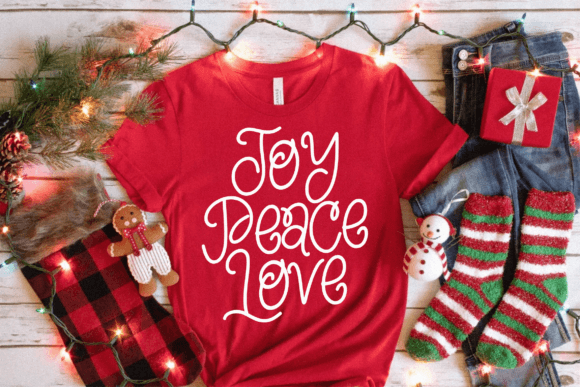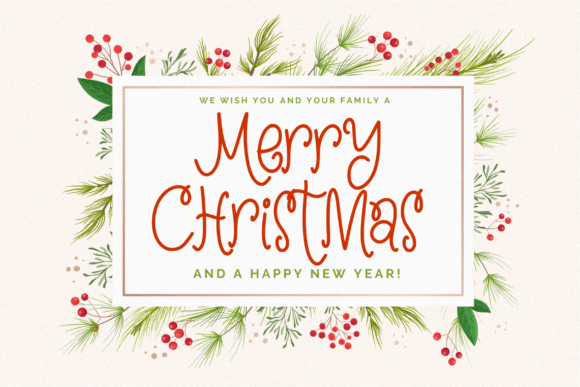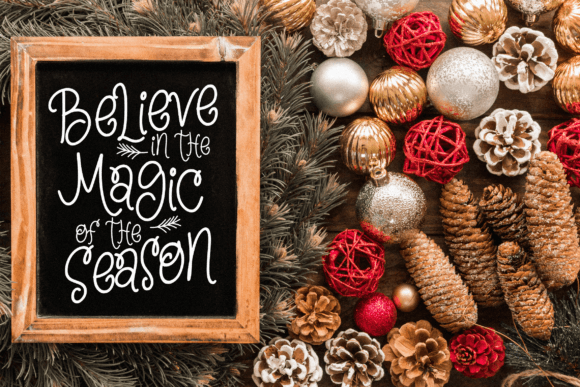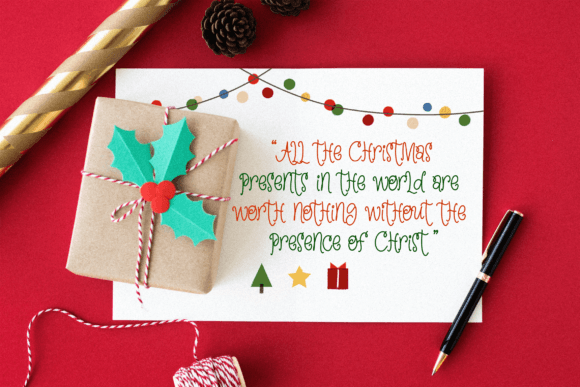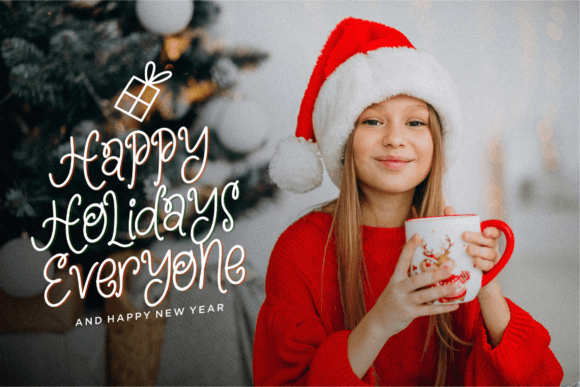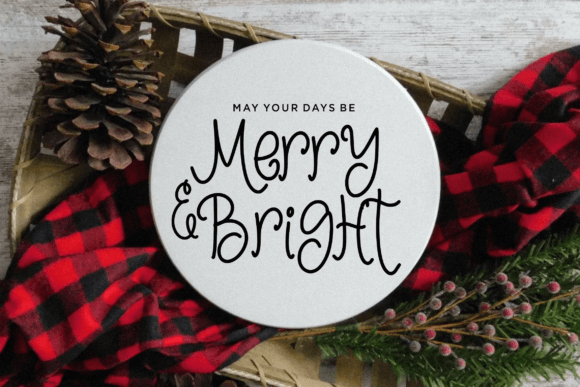
Gingerbel Font: A Festive Christmas Handwritten Font for Your Creative Projects
Are you looking for a font that captures the essence of Christmas and adds a touch of warmth to your designs? Look no further than Gingerbel Font, a beautiful Christmas handwritten font that’s perfect for a variety of creative projects. In this article, we’ll explore the features and benefits of Gingerbel Font, and show you how to use it to take your designs to the next level.
What is Gingerbel Font?
Gingerbel Font is a carefully crafted Christmas handwritten font that’s designed to bring a sense of joy and festivity to your designs. With its elegant and cursive strokes, this font is perfect for adding a personal touch to your projects. Whether you’re working on product packaging, branding projects, magazines, social media, weddings, or simply want to add a creative flair to your designs, Gingerbel Font is the perfect choice.
Key Features of Gingerbel Font
- Christmas Theme: Gingerbel Font is specifically designed for the Christmas season, making it perfect for holiday-themed projects.
- Handwritten Style: The font features a beautiful, handwritten style that’s both elegant and playful.
- Versatile: Gingerbel Font can be used for a wide range of projects, from product packaging to social media graphics.
Benefits of Using Gingerbel Font
So why choose Gingerbel Font for your next project? Here are just a few benefits of using this amazing font:
- Adds a Personal Touch: Gingerbel Font adds a personal touch to your designs, making them stand out from the crowd.
- Creates a Festive Atmosphere: The font’s Christmas theme and handwritten style create a festive atmosphere that’s perfect for holiday-themed projects.
- Versatile: Gingerbel Font can be used for a wide range of projects, making it a great addition to your font library.
- High-Quality: The font is high-quality and easy to read, making it perfect for both print and digital projects.
Inspiration for Your Gingerbel Font Projects
Still looking for inspiration for your Gingerbel Font projects? Here are a few ideas to get you started:
- Product Packaging: Use Gingerbel Font to add a personal touch to your product packaging, making it stand out on store shelves.
- Holiday Cards: Create beautiful holiday cards using Gingerbel Font, and add a personal message to make it extra special.
- Social Media Graphics: Use Gingerbel Font to create eye-catching social media graphics that capture the essence of Christmas.
- Wedding Stationery: Add a touch of elegance to your wedding stationery using Gingerbel Font, making it a memorable keepsake for your guests.
Gingerbel Font is a beautiful Christmas handwritten font that’s perfect for adding a touch of warmth and festivity to your designs. With its elegant and cursive strokes, this font is versatile and easy to use, making it a great addition to your font library. Whether you’re working on product packaging, branding projects, or social media graphics, Gingerbel Font is the perfect choice. So why wait? Download Gingerbel Font today and start creating stunning designs that capture the essence of Christmas!